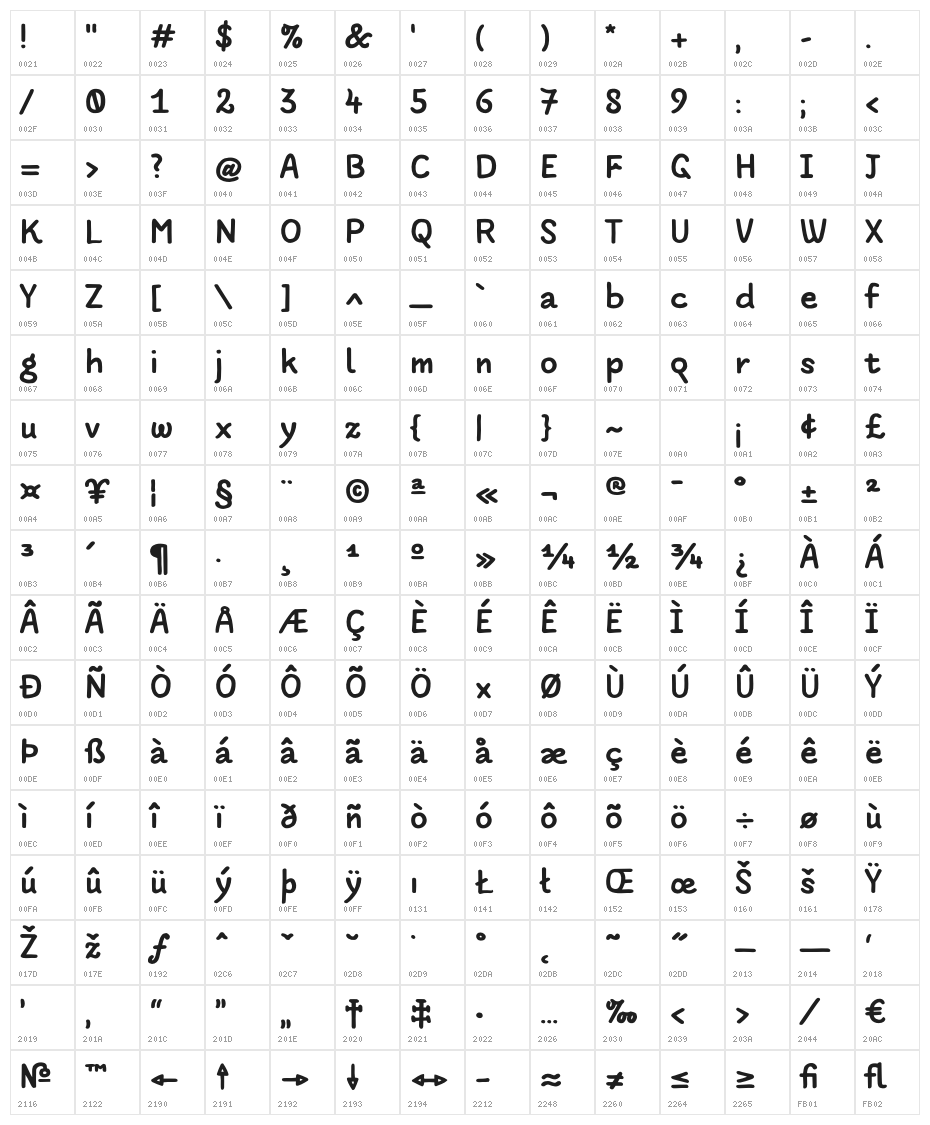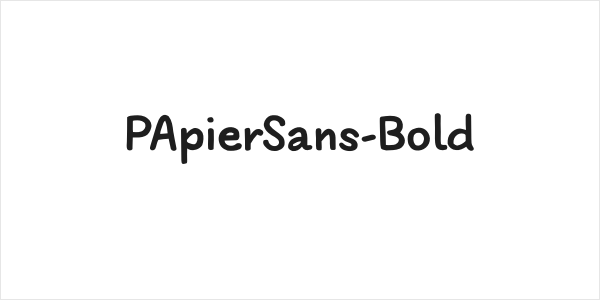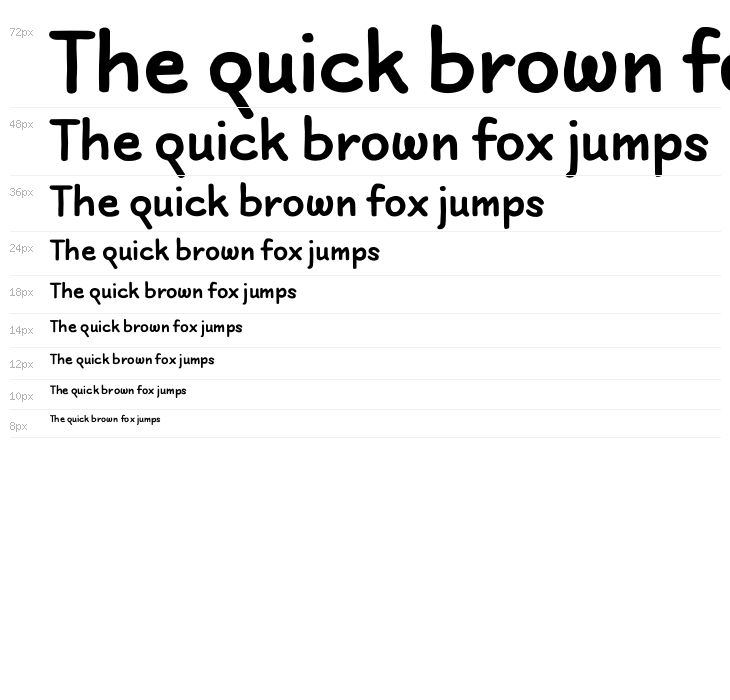
PApierSans-Bold Font
PApierSans-Bold Description
This font features a playful and bold style with rounded edges, giving it a friendly and approachable appearance. The characters are slightly irregular, adding a hand-drawn feel that enhances its charm. The uppercase and lowercase letters maintain a consistent weight, ensuring readability. The numerals are clear and distinct, while the special characters are well-integrated, matching the overall aesthetic. This font's boldness makes it stand out, yet its rounded forms keep it from being too harsh, making it versatile for various design needs.
| Proposed Projects | Ideal for children's books, playful branding, posters, and social media graphics. |